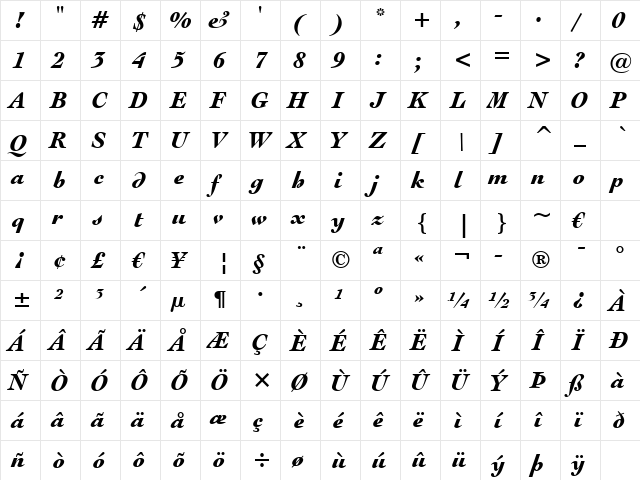
EngrvOs205 Blk BT Black Italic
Design Context for EngrvOs205 Blk BT Typeface
EngrvOs205 Blk BT offers clean, dependable letterforms without strong stylistic allegiance, making it a practical choice for designers who need flexibility. Its italic angle brings a sense of urgency and motion to the letterforms.
Pro Tip: Try EngrvOs205 Blk BT for annotation and caption copy alongside an upright companion — the contrast in angle creates a dynamic but ordered typographic system.